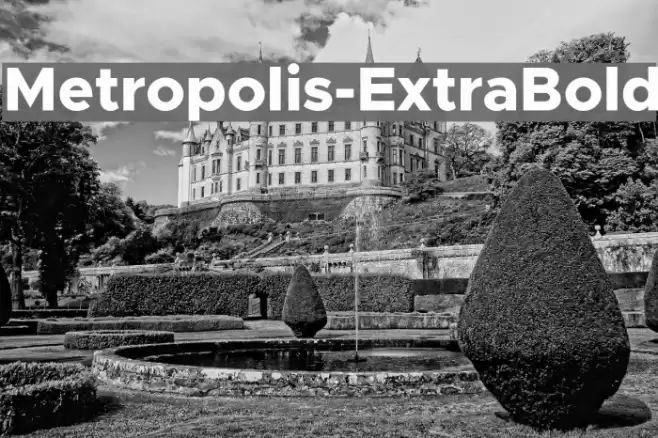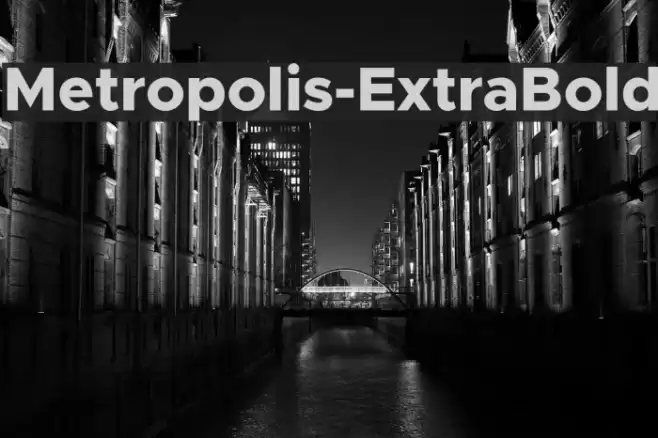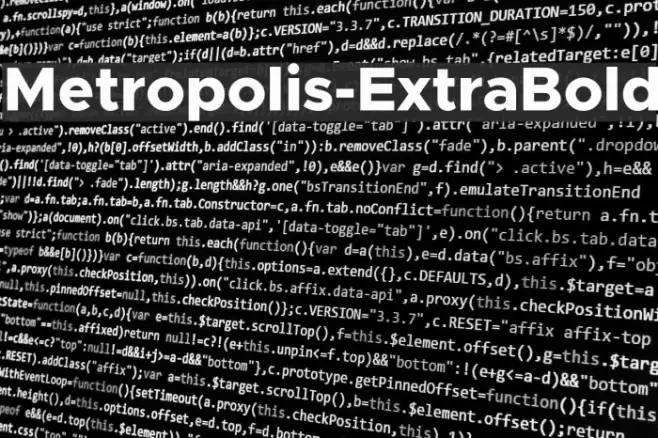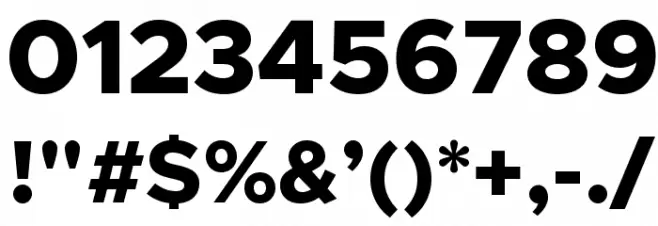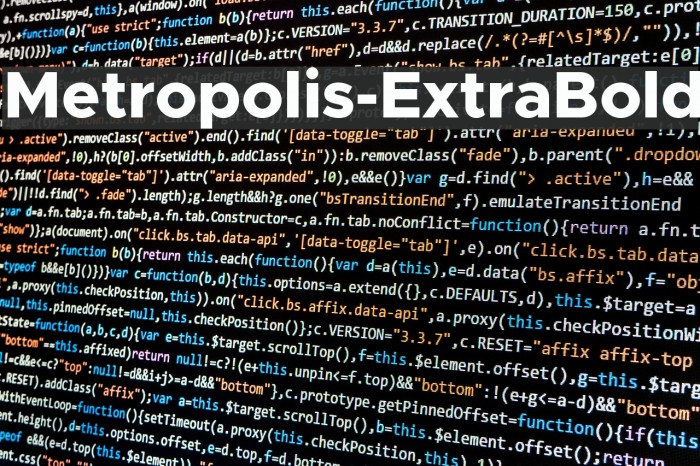
Metropolis-ExtraBold Font
Metropolis-ExtraBold Description
This font features a bold and modern sans-serif design with clean lines and a strong presence. The uppercase letters are uniform in height, creating a cohesive and balanced look. The lowercase letters maintain a consistent style, with rounded edges that add a touch of softness to the overall boldness. The numerals are clear and easy to read, making them suitable for various applications. Special characters are well-defined, enhancing the font's versatility. The overall design is sleek and contemporary, making it ideal for modern branding and design projects.
A bold, modern sans-serif font with clean lines and a strong presence from Uncategorized fonts.
- Proposed Projects: Ideal for branding, headlines, posters, and digital media where a strong, modern aesthetic is desired.